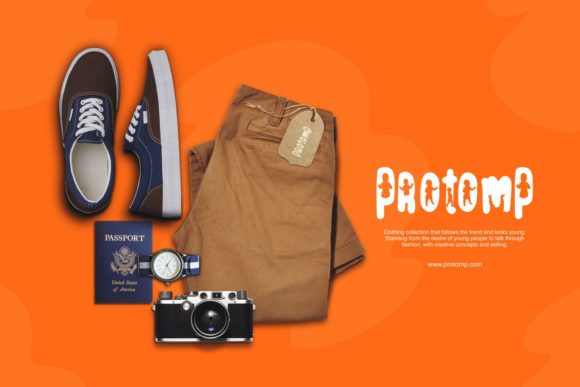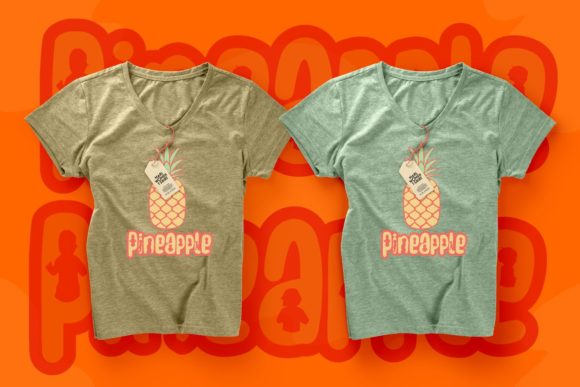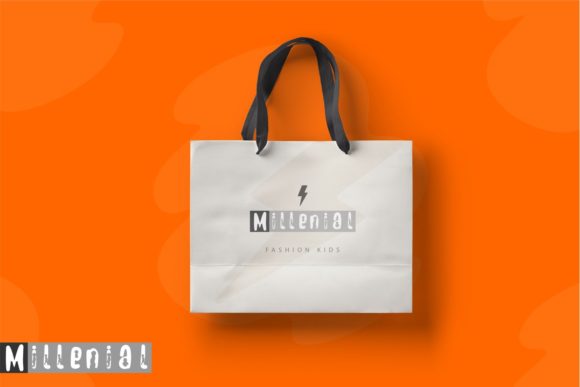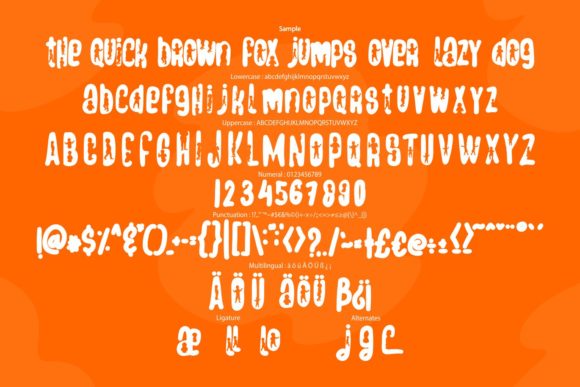
Unlock the Power of Childhood Wonder with Dream Kids Font
Remember the magic of childhood? The world was full of endless possibilities, and imagination knew no bounds. As designers, we’re no strangers to capturing that essence in our work. Whether it’s a school project, a kids’ magazine, or a charity campaign, we know the importance of conveying a sense of wonder and curiosity.
That’s where the Dream Kids Font comes in – a chunky lettered display font that embodies the very spirit of childhood. Its incredibly sweet and friendly design makes it the perfect choice for any project that needs to convey a sense of innocence and playfulness. With the Dream Kids Font, designers can tap into the limitless potential of their imagination and create something truly special.
Dream Kids Font Key Features
- Unique Characteristics: The font features a playful, child-friendly design with bold lines, rounded edges, and vibrant colors, making it perfect for children’s books, educational materials, and kid-friendly branding.
Dream Kids Font Review
I recently had the chance to work with the Dream Kids Font, and I must say it’s a mixed bag. On the one hand, it’s a ✨ great choice for kid-friendly projects, with its playful and whimsical feel.
- ✨ The font’s versatility shines through in its numerous styles and weights, making it easy to find the perfect fit for your design.
- ✨ The font’s rounded edges and friendly feel make it perfect for use in children’s books, educational materials, and even kids’ websites.
However, I do have some concerns with the font’s limitations. One major issue is the ⚠️ lack of scalability, which can lead to pixelation when used at larger sizes. Additionally, the font’s characters can appear a bit ⚠️ cluttered, especially when used in longer blocks of text.
Overall, I’d say the Dream Kids Font is a solid choice for projects where you need a playful and kid-friendly feel. However, it may not be the best option for projects that require a high level of scalability or text density.
The Dream Kids Font is perfect for creating playful and child-friendly designs, such as children’s book covers, party invitations, and educational materials. You can also use it to add a whimsical touch to your branding and marketing materials.